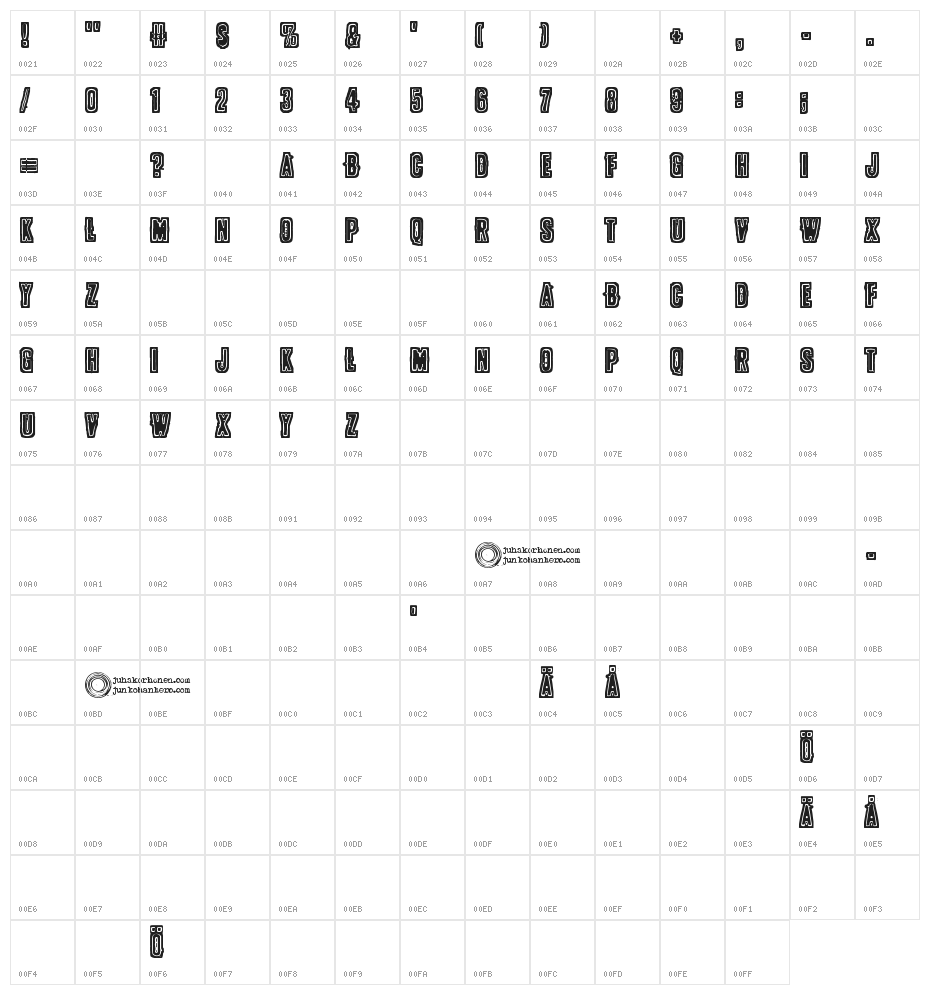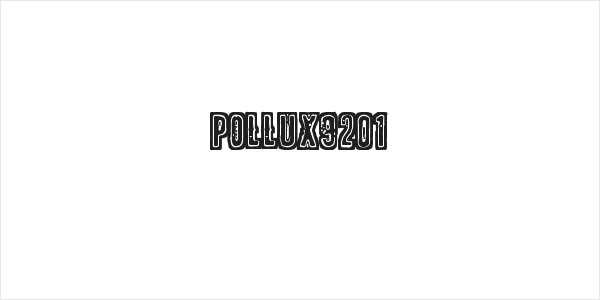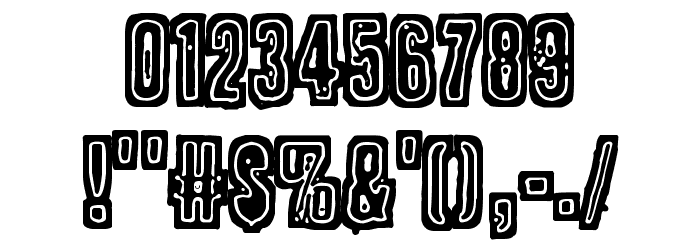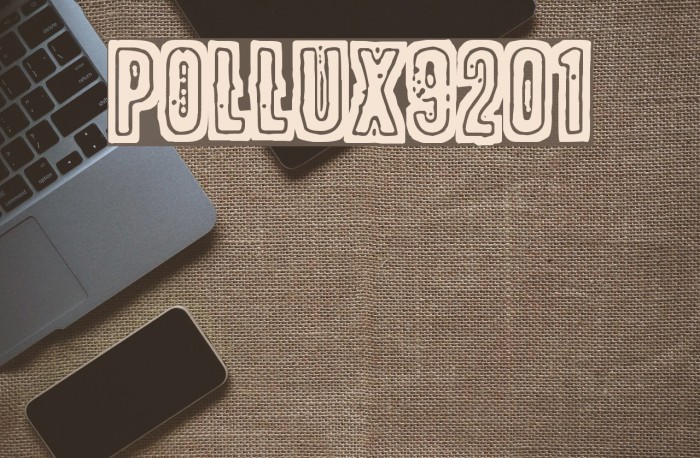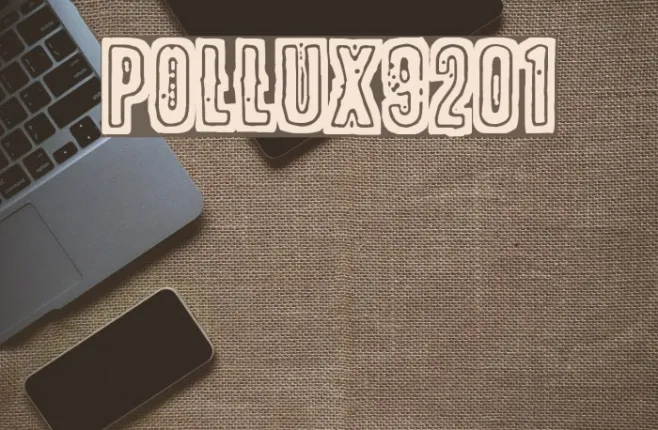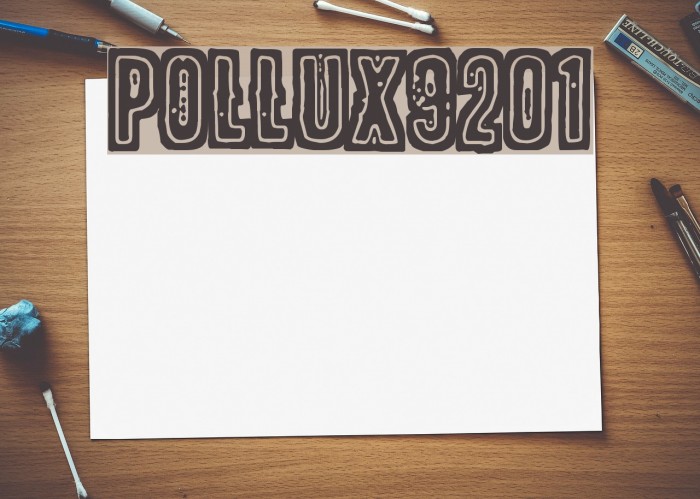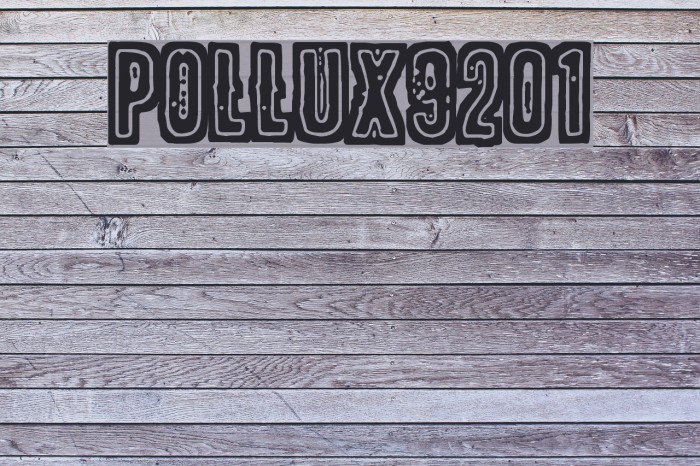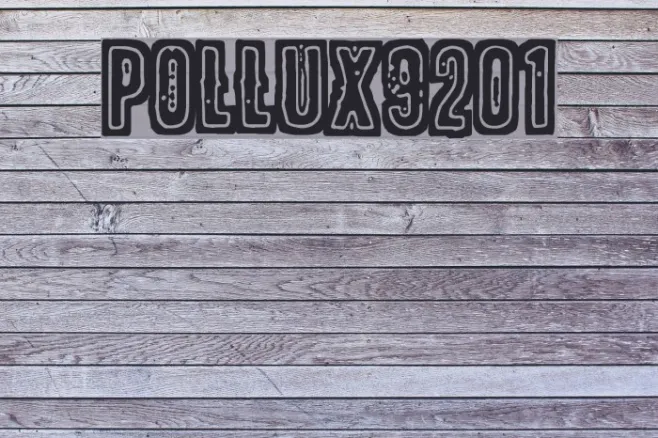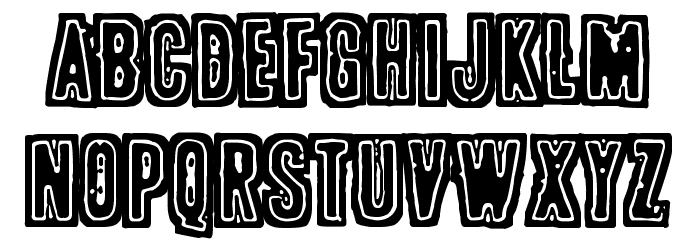
POLLUX9201 Font
POLLUX9201 Description
This font features a bold, decorative style with a distinct outline that gives it a three-dimensional appearance. The letters are uppercase with a rugged, textured look, making them stand out prominently. The design includes a shadow effect that adds depth and character, suitable for eye-catching displays. The numbers and special characters follow the same bold and outlined style, ensuring consistency across all characters. This font is ideal for projects that require a strong visual impact, such as posters, banners, and headlines.
| Proposed Projects | Ideal for posters, banners, headlines, and any project needing a strong visual impact. |